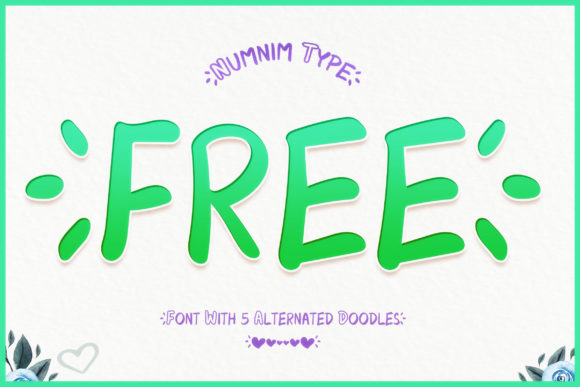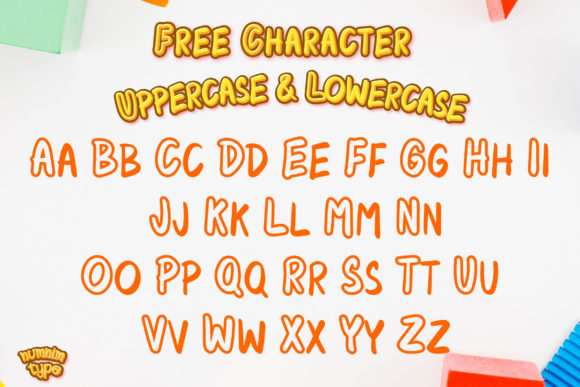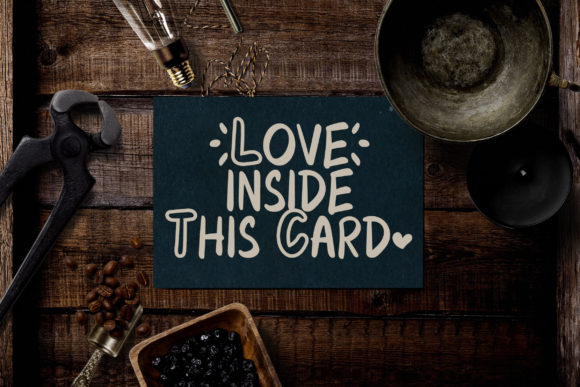
About Free Font
Free is a cool and fun display font. It has a modern yet whimsical style and it will undoubtedly immerse your designs into a magical world.